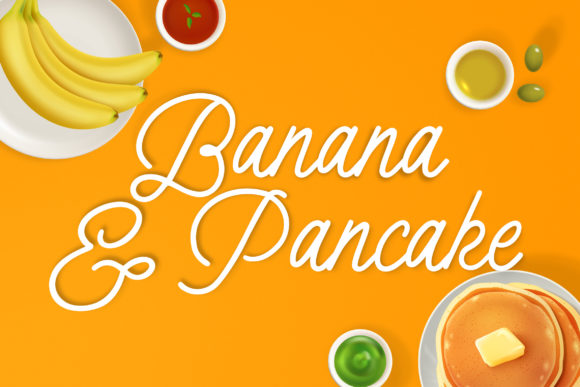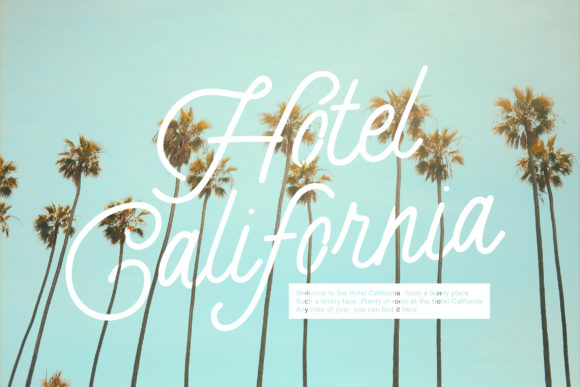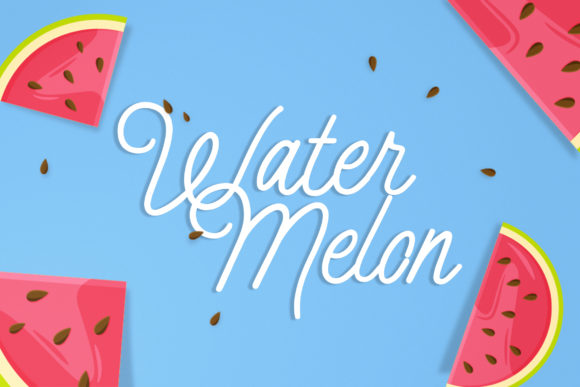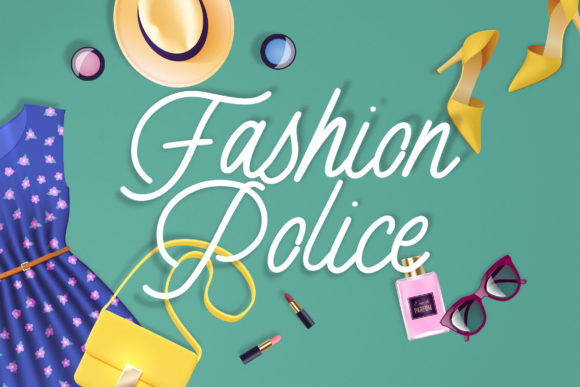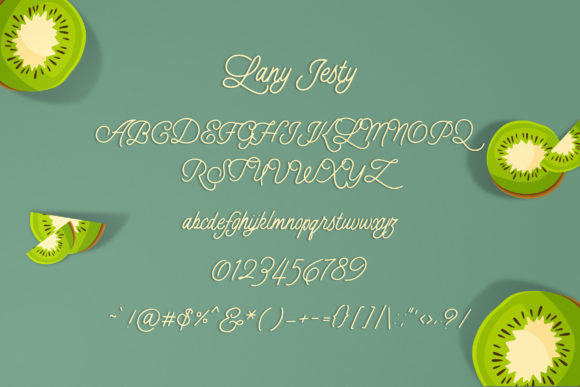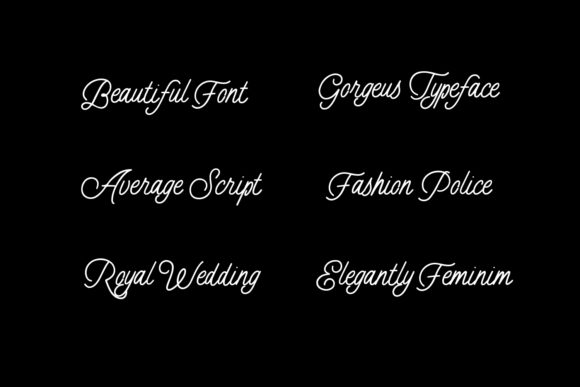
Introduction to Lany Jesty Script Font
Lany Jesty is the perfect font to give your designs an authentic handcrafted feel.
Get inspired by its playful vibe .